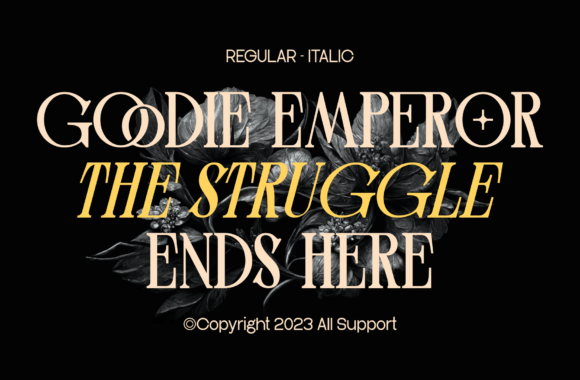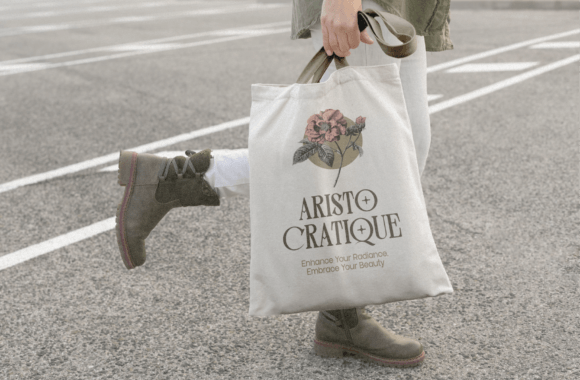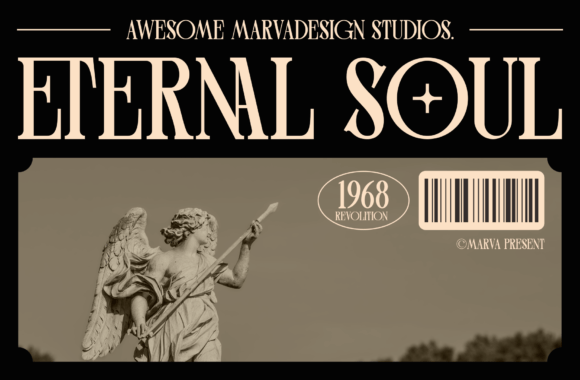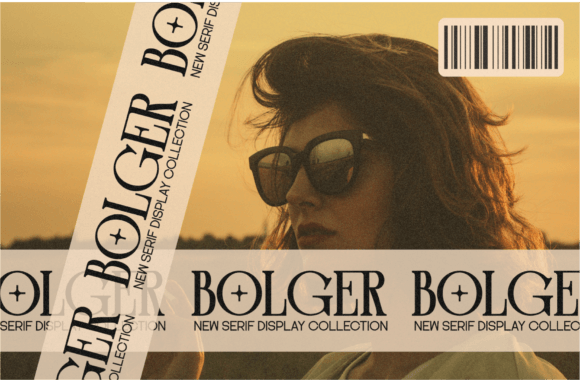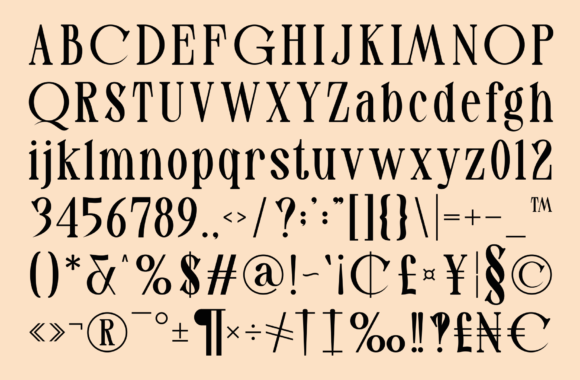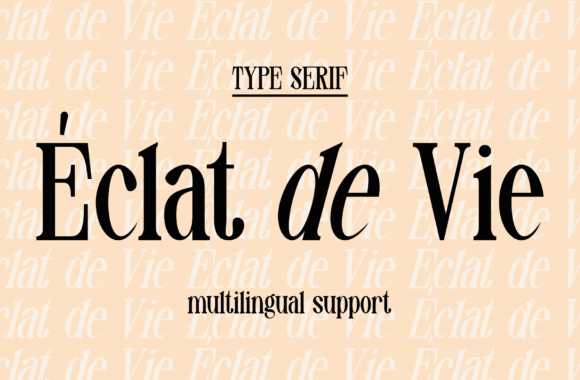
Introducing Bolger Font: The Ultimate Serif Display Font for Your Branding Projects
Are you tired of using the same old fonts for your branding projects? Do you want to make a statement with your logo, template design, or product packaging? Look no further than Bolger Font, the newest addition to our collection of premium fonts. This authentic display font is specifically designed to help you stand out in a wide range of contexts, and we’re excited to share its features and benefits with you.
What is Bolger Font?
Bolger Font is a serif display font that exudes elegance, sophistication, and creativity. Its unique design combines classic serif elements with modern twists, making it perfect for designers and crafters looking for a distinctive look. Whether you’re working on a logo, brochure, or product packaging, Bolger Font is sure to make your project shine.
Key Features of Bolger Font
- Authentic Display Font: Bolger Font is designed to make a statement. Its bold and elegant design ensures that your message will be noticed and remembered.
- Suitable for Various Projects: From logos and template designs to product packaging and more, Bolger Font is versatile enough to be used in a wide range of branding projects.
- Serif Design: The classic serif design of Bolger Font adds a touch of sophistication and elegance to any project, making it perfect for businesses and brands looking to establish a professional image.
- Easy to Read: Despite its bold design, Bolger Font is easy to read, even in smaller sizes, making it perfect for use in a variety of contexts.
Why Choose Bolger Font?
With so many fonts available, why choose Bolger Font for your branding projects? Here are just a few reasons:
- Unique Design: Bolger Font’s unique design sets it apart from other fonts, ensuring that your project will stand out from the crowd.
- High-Quality: Our fonts are designed to be of the highest quality, ensuring that they will look great in any context.
- Versatile: Bolger Font can be used in a wide range of projects, from logos and brochures to product packaging and more.
How to Use Bolger Font
Using Bolger Font in your branding projects is easy. Here are a few tips to get you started:
- Logo Design: Use Bolger Font to create a bold and memorable logo that will help establish your brand identity.
- Template Design: Incorporate Bolger Font into your template designs, such as brochures, flyers, and business cards, to add a touch of elegance and sophistication.
- Product Packaging: Use Bolger Font on product packaging to make your products stand out on store shelves.
Bolger Font is the perfect choice for designers and crafters looking for a unique and versatile serif display font. With its authentic design, high-quality construction, and ease of use, Bolger Font is sure to become a staple in your font collection. Whether you’re working on a logo, template design, or product packaging, Bolger Font is the perfect choice for making a statement. Try it out today and see the difference it can make in your branding projects!